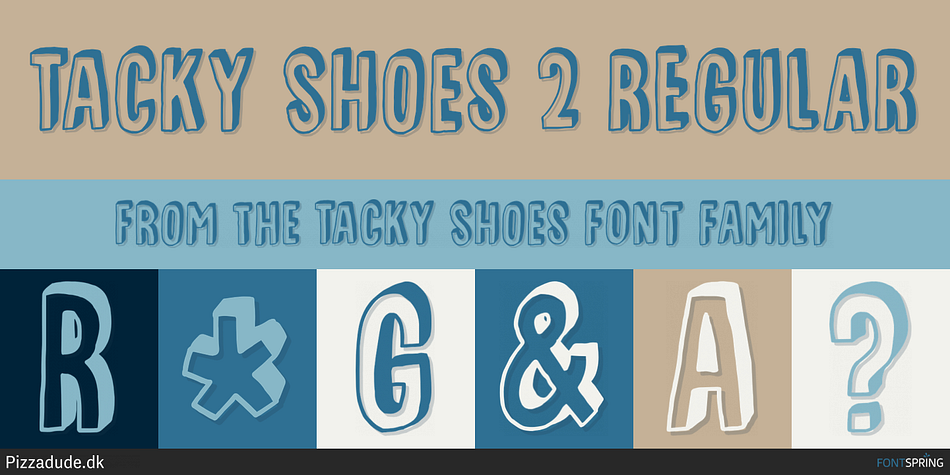
Tacky Shoes 2 Regular
Designed by Jakob Fischer, Tacky Shoes is a hand display font family. This typeface has six styles and was published by Pizzadude.dk.
May I present to you: Tacky Shoes. Actually there’s nothing tacky here - just liked the sound of that :) Just like the letters may look quite straight-forward, but here and there the lines are a bit off, which enhances the handmade look - which makes it great for work like posters, invitations, flyers, stickers or something that has to do with creativity.
Each letter has 6 variants (in all 6 versions!) which makes the text look more natural and random - because these variants cycle as you type!